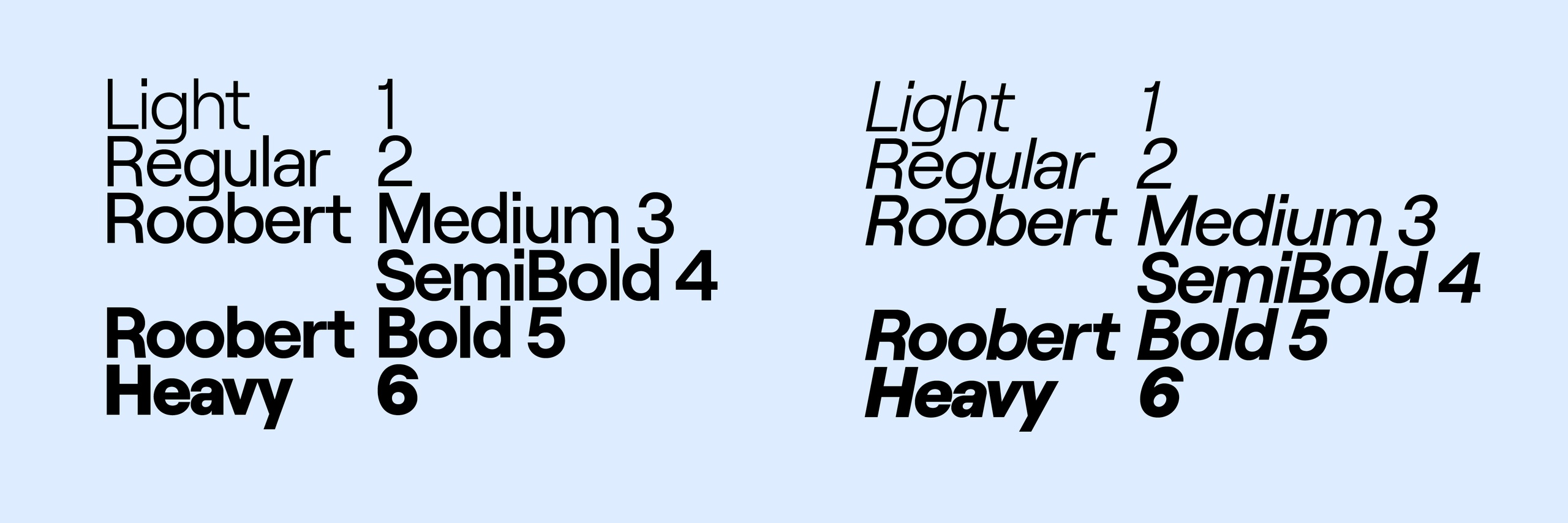
Roobert Font
Roobert Font excels in modern startup branding, clean website designs, minimalist mobile applications, contemporary editorial layouts, tech company presentations, progressive marketing campaigns, sleek product packaging, architectural portfolios, digital agency identities, urban lifestyle magazines, innovative social platforms, and sophisticated user interfaces where clarity and modern elegance create seamless user experiences.
This exceptional typeface generates excitement through its perfect balance of geometric precision and humanist warmth that creates typography with both technical excellence and approachable personality. Roobert Font distinguishes itself with its carefully crafted letterforms that maintain consistent optical balance across all weights while preserving distinctive character details. The font's contemporary aesthetic reflects current design trends without sacrificing timeless appeal, featuring subtle curves and refined proportions that enhance readability while adding visual interest. Its versatile nature allows designers to create cohesive brand systems that work flawlessly across print and digital platforms.
The Roobert Font family includes comprehensive weight options such as Thin, Light, Regular, Medium, Bold, and Heavy, each available in Roman and Italic styles. The collection also features condensed variations and extended character sets supporting multiple languages. Advanced OpenType features include stylistic alternates, contextual ligatures, and proportional figures that enhance professional typography applications. Special attention has been given to spacing and kerning optimization for superior performance in both display and text applications.
Whether you're developing brand guidelines for innovative companies, creating responsive web interfaces, designing annual reports, or building comprehensive design systems, Roobert Font delivers unmatched versatility and contemporary sophistication. Its clean aesthetic ensures optimal performance across digital platforms while its refined details add subtle elegance to print applications. The font's ability to balance functionality with personality makes it an essential tool for designers who value both practical performance and aesthetic excellence in modern typography solutions.